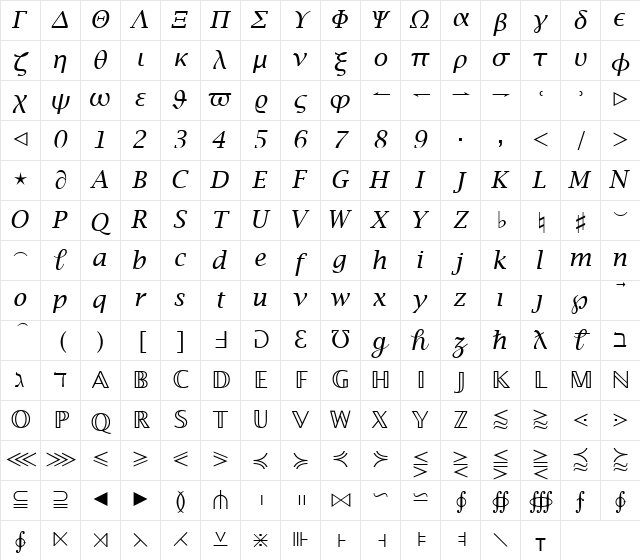
Lucida Bright Math Italic Regular
Design Context for Lucida Bright Math Italic
Lucida Bright Math Italic is a composed and adaptable typeface that performs quietly and consistently across a wide range of design contexts. The slanted form adds forward momentum and visual energy.
Pro Tip: Use Lucida Bright Math Italic for emphasis, pull quotes, and subheadings where its slanted energy can add rhythm to the layout.